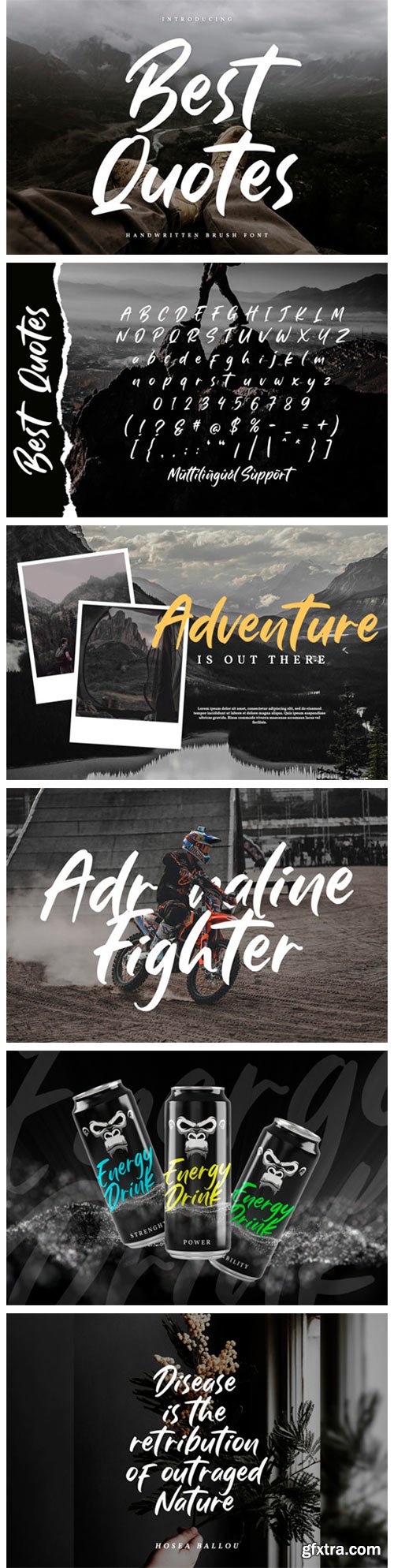
Best Quotes Font
Best Quotes is an exquisite handwritten font, masterfully designed to become a true favorite. It maintains its classy calligraphic influences while feeling contemporary and fresh. Fall in love with it and bring your projects to the highest levels!